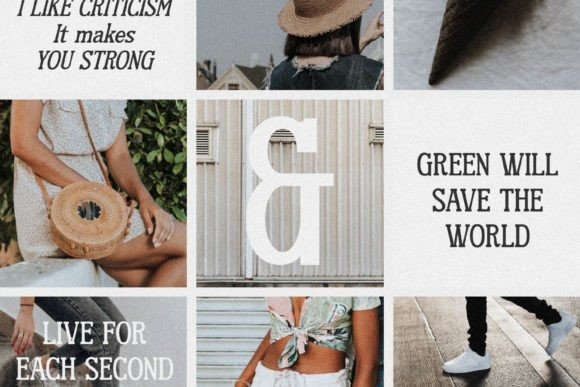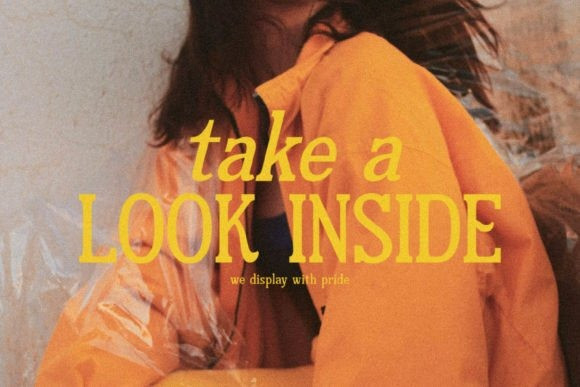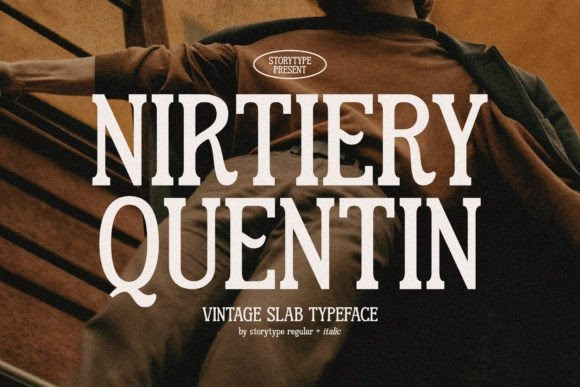
Nirtiery Quentin Font
NIRTIERY QUENTIN Serif Font, created by Storytype, a serif modern and classic typeface that has own unique style & modern look.